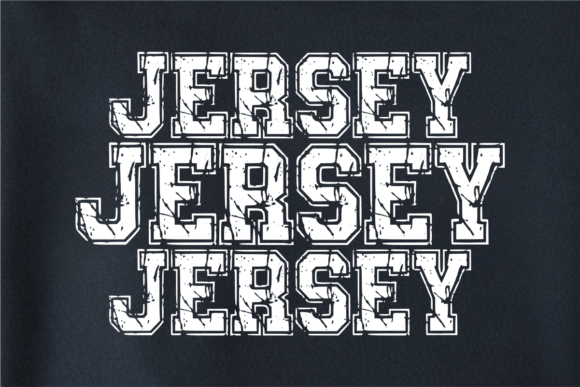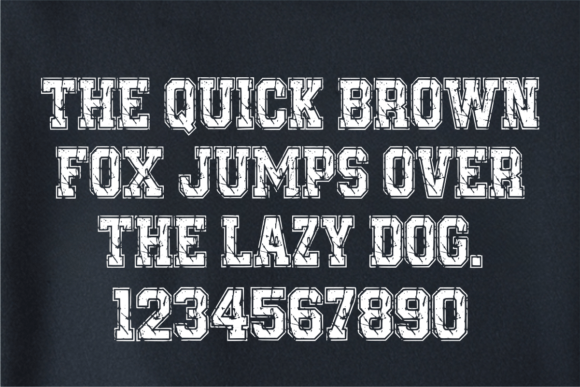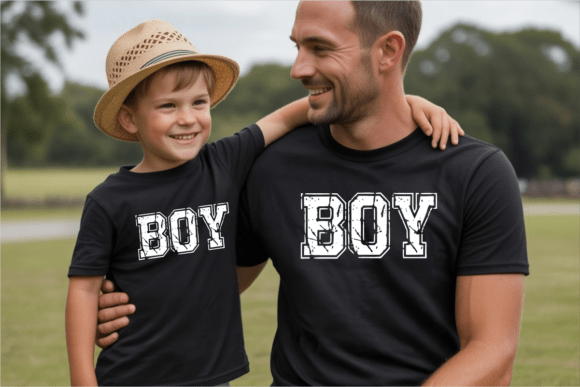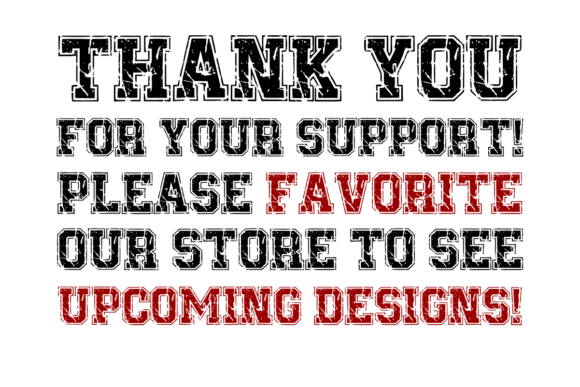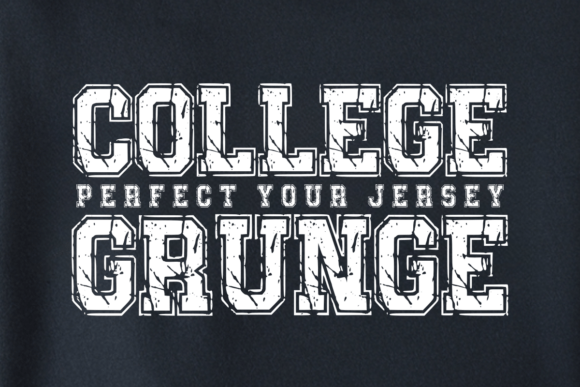
Introducing College Grunge Font: The Ultimate Choice for Sports and Vintage Designs
Are you a designer, crafter, or sports enthusiast looking for a font that embodies the spirit of collegiate sports and vintage athletic wear? Look no further than the College Grunge Font. This bold slab serif sports typeface is designed to bring a rugged, grunge texture to your designs, making it perfect for jerseys, t-shirts, team logos, and other athletic apparel projects.
Classic Collegiate Style with a Grunge Twist
The College Grunge Font boasts a classic collegiate style that’s reminiscent of traditional sports typography. However, its grunge texture adds a unique twist that sets it apart from more traditional fonts. This font is ideal for designers and crafters who want to create authentic, high-energy sports designs that capture the spirit of competition and teamwork.
Perfect for Various Sports and Design Projects
Whether you’re working on football, baseball, basketball, or gym apparel projects, the College Grunge Font is the perfect choice. Its bold, rugged design makes it suitable for a wide range of sports and activities, from game-day merchandise to workout shirts and team banners. Additionally, its versatility makes it an excellent choice for designers and crafters who want to create motivational graphics, posters, and other visual elements.
Compatibility with Popular Design Tools
With the College Grunge Font, the design possibilities are endless. Here are just a few ideas to get you started:
- Game-day merchandise: Create bold, eye-catching designs for t-shirts, hoodies, and other apparel.
- Team logos and branding: Use the font to create professional-looking logos and branding elements for sports teams.
- Motivational graphics: Design inspiring posters, social media graphics, and other visual elements to motivate athletes and teams.
- Vintage athletic designs: Create retro-style designs that evoke the spirit of classic athletic wear.
Why Choose the College Grunge Font?
So why choose the College Grunge Font over other fonts? Here are just a few reasons:
- Unique grunge texture: The font’s grunge texture adds a unique, rugged element to your designs.
- Bold and high-energy: The font’s bold design makes it perfect for creating high-energy sports designs.
- Classic collegiate style: The font’s classic collegiate style makes it suitable for traditional sports typography.
- Versatile: The font is suitable for a wide range of design projects, from sports apparel to motivational graphics.
In conclusion, the College Grunge Font is a versatile, bold, and high-energy font that’s perfect for designers, crafters, and sports enthusiasts. Its unique grunge texture, classic collegiate style, and compatibility with popular design tools make it an excellent choice for a wide range of design projects. Whether you’re creating game-day merchandise, team logos, or motivational graphics, the College Grunge Font is sure to bring a bold, rugged element to your designs.